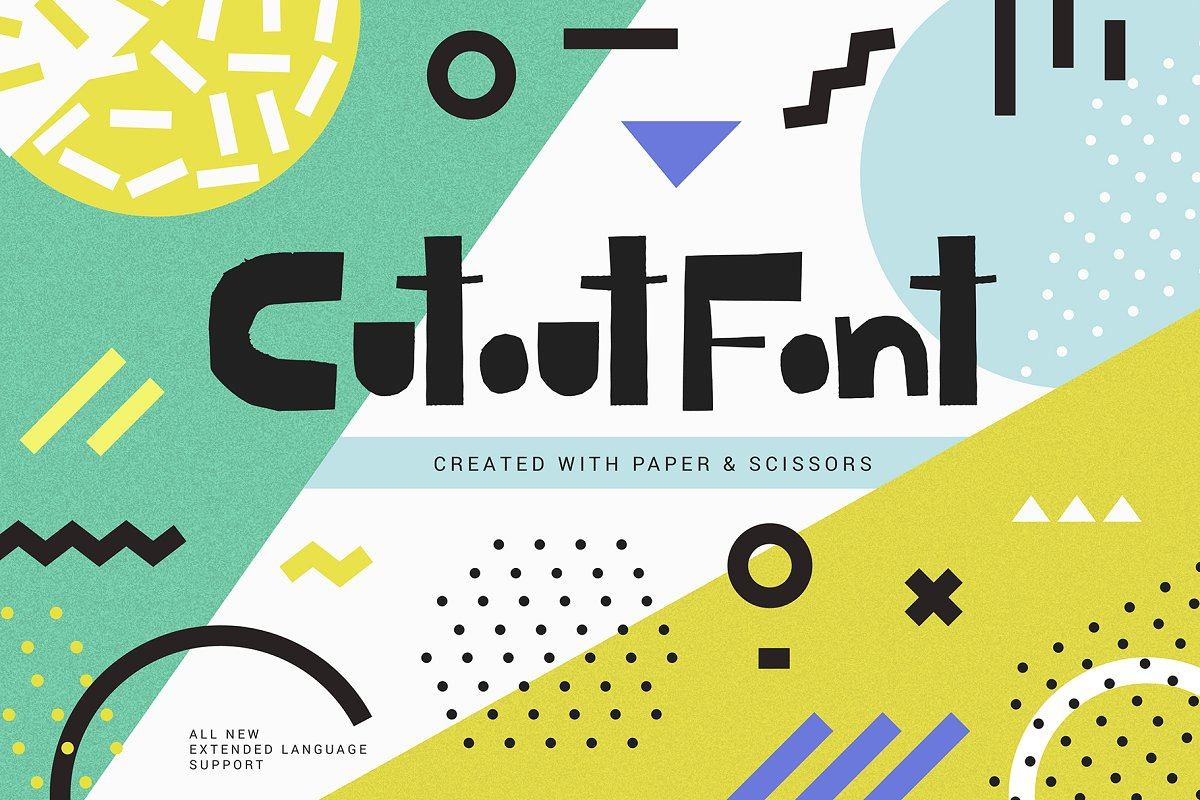
Cutout - bold uppercase font Free Download
Cutout - Bold Uppercase Font Free Download
Cutout - Bold Uppercase Font Free Download is a strong, eye-catching typeface designed to make a bold statement. With its sharp edges and uppercase design, this font is perfect for creating impactful headlines, posters, logos, and other design projects that need to grab attention. Its bold style and geometric form ensure that it stands out in both digital and print applications.